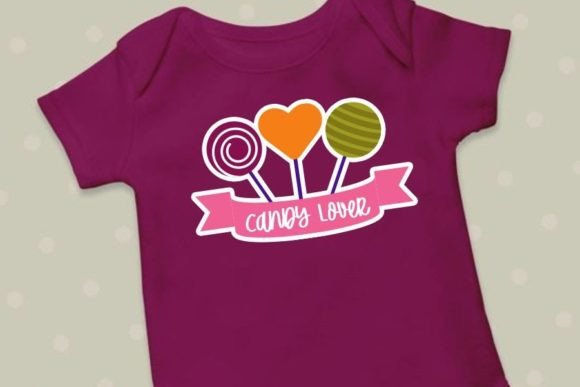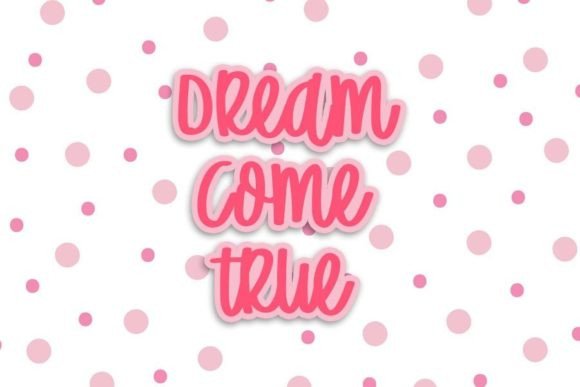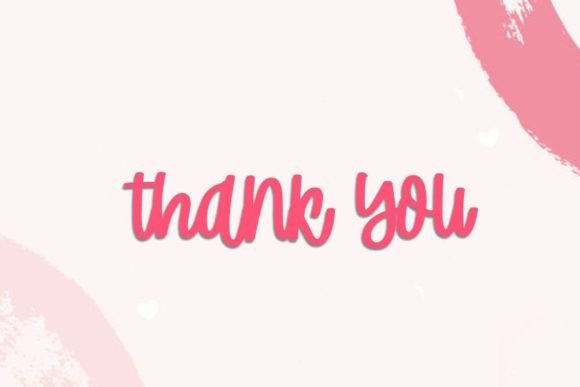
Little Girl Font
About Little Girl Font
**Little Girl Font: Where Cuteness Meets Trendy Charm**
Introducing “Little Girl,” a cute and trendy handwritten font that adds a touch of sweetness and charm to your designs. With its natural and unique style, this font is a delightful choice that adapts effortlessly to a broad range of creative applications. Let your imagination run wild—there’s no limit to the delightful possibilities that “Little Girl” brings to your design projects.
At the heart of “Little Girl” is a cuteness that captures hearts. The font’s handwritten characters radiate a playful charm, making it an ideal choice for designs that aim to evoke a lighthearted and delightful feel. “Little Girl” is not just a typeface; it’s a design element that infuses joy into your creative endeavors.
The natural and unique style of “Little Girl” opens the door to endless design possibilities. Picture it gracing children’s book covers, adding a touch of whimsy to social media posts, or becoming the signature font for branding that seeks a playful yet authentic aesthetic. This font becomes a versatile companion that aligns effortlessly with the essence of your creative vision.
The versatility of “Little Girl” knows no bounds, making it suitable for diverse applications across various mediums. Whether you’re working on print designs, digital content, or crafting handmade creations, this font becomes the charming brushstroke that elevates your projects.
In conclusion, “Little Girl” is not just a font; it’s a journey into cuteness and trendy charm. Embrace it, and watch as your designs come alive with a delightful touch. With “Little Girl,” every letter becomes a brushstroke in the canvas of creativity, leaving an indelible mark of whimsy on your design journey.